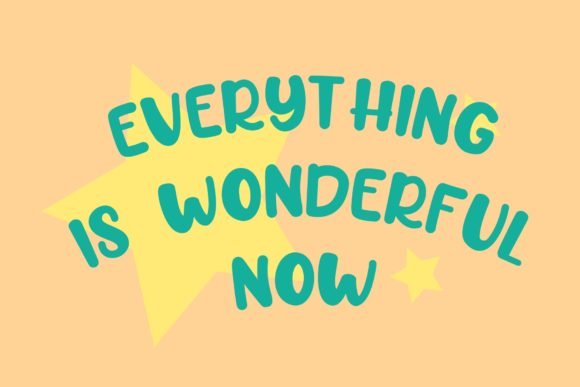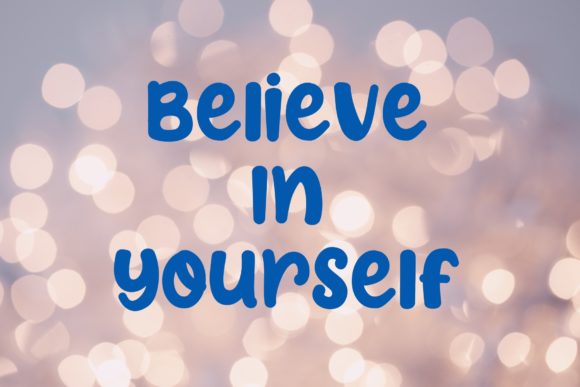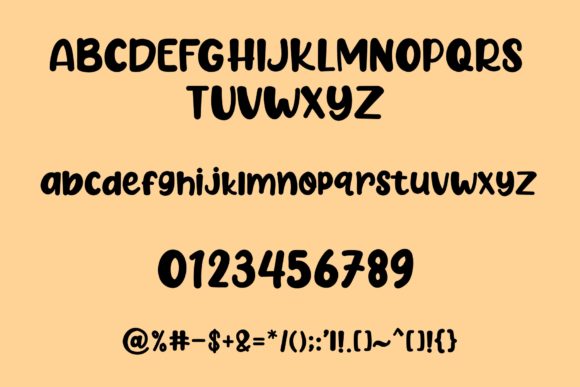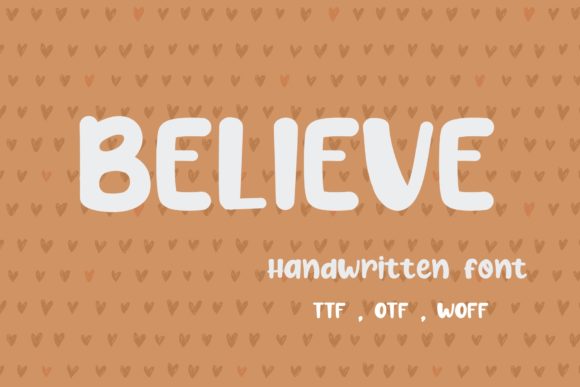
Introducing Believe Font: The Perfect Addition to Your Design Arsenal
Are you tired of using the same old fonts in your designs? Look no further! Believe Font is here to shake things up with its fun and chunky lettered handwritten style. This simple yet unique font is ideal for any casual design you wish to develop, and we’re excited to dive into its features and benefits.
What is Believe Font?
Believe Font is a handcrafted, handwritten font that exudes a sense of playfulness and friendliness. Its chunky letters and carefree vibe make it perfect for designs that require a personal touch. Whether you’re working on a project for a client or creating something for your own brand, Believe Font is sure to add a dash of personality to your work.
Key Features of Believe Font
- Handwritten style: Believe Font boasts a genuine handwritten look that’s perfect for creating a personal connection with your audience.
- Chunky letters: The font’s chunky letters add a touch of whimsy and playfulness to your designs.
- Simple and unique: Believe Font’s simplicity is part of its charm, making it easy to read and understand while still standing out from more traditional fonts.
- Versatile: This font is suitable for a wide range of design projects, from branding and advertising to packaging and more.
Why Choose Believe Font?
With so many fonts available, why should you choose Believe Font for your next project? Here are just a few compelling reasons:
- Adds personality to your designs: Believe Font’s unique style helps your designs stand out and adds a touch of personality to your brand.
- Easy to read: Despite its chunky letters, Believe Font is surprisingly easy to read, making it perfect for body text and headings.
- Time-saving: With Believe Font, you can create stunning designs in no time. Its simplicity and versatility save you time and effort, allowing you to focus on other aspects of your project.
Use Cases for Believe Font
Believe Font’s versatility makes it suitable for a wide range of design projects. Here are some use cases to get you started:
- Branding and logos: Create a memorable brand identity with Believe Font’s unique and playful style.
- Social media graphics: Add a personal touch to your social media posts and stories with Believe Font’s friendly vibe.
- Packaging design: Stand out on store shelves with Believe Font’s eye-catching style.
- Advertising and marketing: Use Believe Font to create attention-grabbing ads and promotional materials.
Tips for Using Believe Font
To get the most out of Believe Font, here are some tips to keep in mind:
- Experiment with colors: Believe Font looks great in a variety of colors, so don’t be afraid to try out different hues and combinations.
- Mix and match: Combine Believe Font with other fonts to create a unique and visually appealing design.
- Play with sizes: Believe Font’s chunky letters look great in large sizes, but don’t be afraid to experiment with smaller sizes for added versatility.
In conclusion, Believe Font is a fun and chunky lettered handwritten font that’s perfect for adding a personal touch to your designs. Its simplicity, uniqueness, and versatility make it an ideal choice for a wide range of design projects. Whether you’re a designer, crafter, or DIY enthusiast, Believe Font is sure to become a staple in your design toolkit.